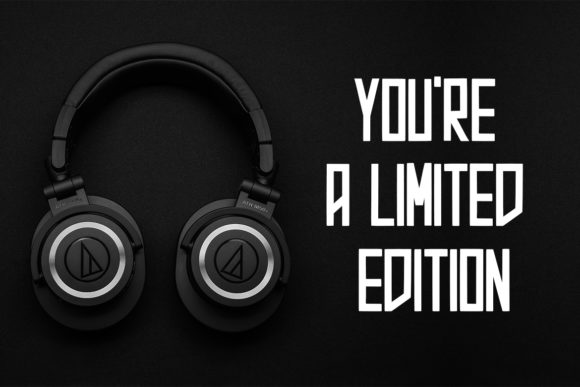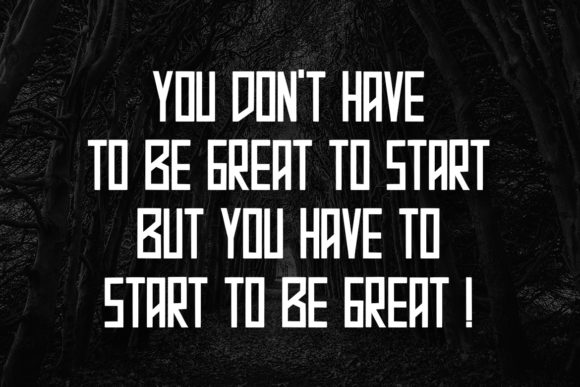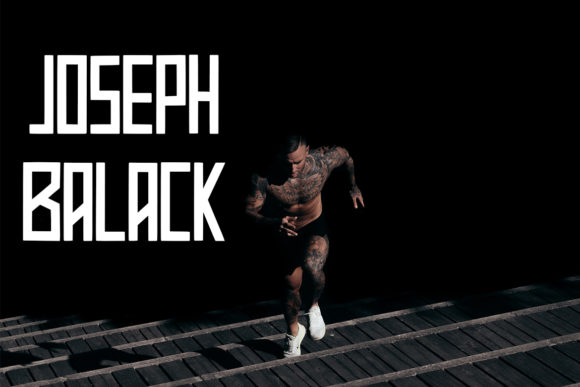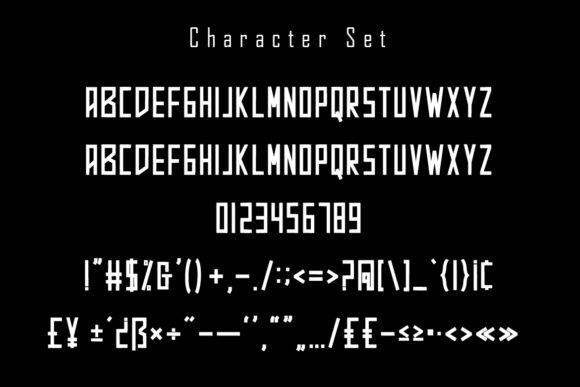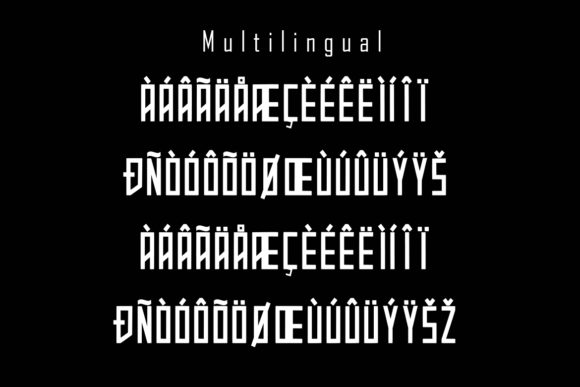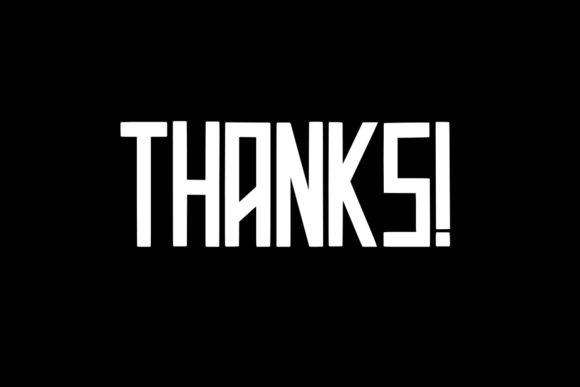
Discover the Timeless Charm of Hasley Font: Elevate Your Craft Designs with Ease
In the world of typography, few fonts have managed to stand the test of time as gracefully as the Hasley Font. This classic sans serif font has been a staple in the design community for its simplicity, versatility, and undeniable charm. Whether you’re a seasoned designer or a crafty enthusiast, Hasley Font is an excellent addition to your typography arsenal, promising to elevate your craft designs to new heights.
The Essence of Hasley Font
At its core, Hasley Font embodies the essence of modern simplicity. Its clean lines and unadorned aesthetic make it an incredibly easy font to work with. The beauty of Hasley lies in its subtle sophistication, allowing it to seamlessly blend into various design contexts without overpowering them. This adaptability is a hallmark of great design, and Hasley Font wears it well.
Why Choose Hasley Font?
- Simplicity: In an era where design trends come and go, simplicity remains a timeless choice. Hasley Font offers a straightforward, no-frills approach to typography that speaks to a wide audience.
- Versatility: Whether you’re working on a digital project, crafting a logo, or designing a poster, Hasley Font adapts with ease. Its neutral background makes it an ideal choice for a multitude of applications.
- Ease of Use: One of the most significant advantages of Hasley Font is its user-friendliness. Designers of all skill levels can integrate it into their projects without a steep learning curve, making it accessible to everyone.
- Aesthetic Appeal: The real magic happens when you pair Hasley Font with your craft designs. The font’s clean and crisp appearance brings a level of sophistication and elegance, turning simple designs into visually compelling pieces.
Mixing Hasley Font with Craft Designs
The true potential of Hasley Font is unlocked when it’s combined with creative craft designs. Here are a few ideas on how to beautifully integrate Hasley Font into your projects:
- Paper Crafting: Use Hasley Font to add personalized touches to your cards, invitations, or scrapbooking projects. Its clear and readable style ensures your messages are conveyed with elegance.
- DIY Projects: Whether you’re labeling your homemade goods, creating signs for a craft fair, or designing custom decals, Hasley Font provides a professional finish to your DIY endeavors.
- Digital Art: When creating digital art or graphics, pairing Hasley Font with vibrant colors and unique textures can produce stunning results. The font’s simplicity ensures it doesn’t compete with other design elements.
Tips for Maximizing Hasley Font’s Potential
To make the most out of Hasley Font, consider the following tips:
- Experiment with Sizes: Don’t be afraid to play with different font sizes to create visual hierarchy and emphasis in your designs.
- Color Matters: Choose colors that complement your design theme. Contrasting colors can make your text stand out, while matching colors can provide subtlety.
- Mix and Match: Combine Hasley Font with other design elements and fonts to create unique and engaging compositions. Its simplicity often provides a perfect backdrop for more decorative fonts.
Hasley Font stands as a testament to the enduring power of simple, well-designed typography. Its ease of use, versatility, and aesthetic appeal make it an invaluable resource for designers and crafters alike. By incorporating Hasley Font into your projects, you’re not just choosing a font; you’re embracing a design philosophy that values clarity, elegance, and creativity. So, go ahead and explore the possibilities that Hasley Font offers. Your next stunning craft design could be just a typography choice away.